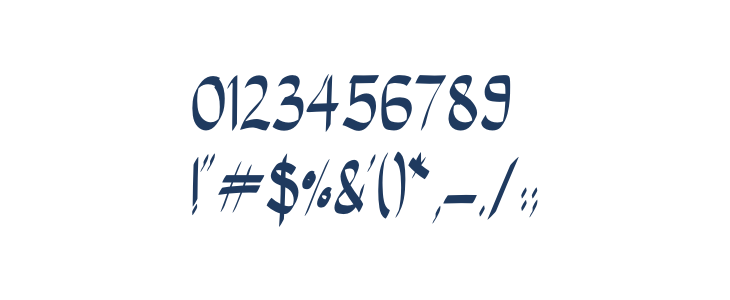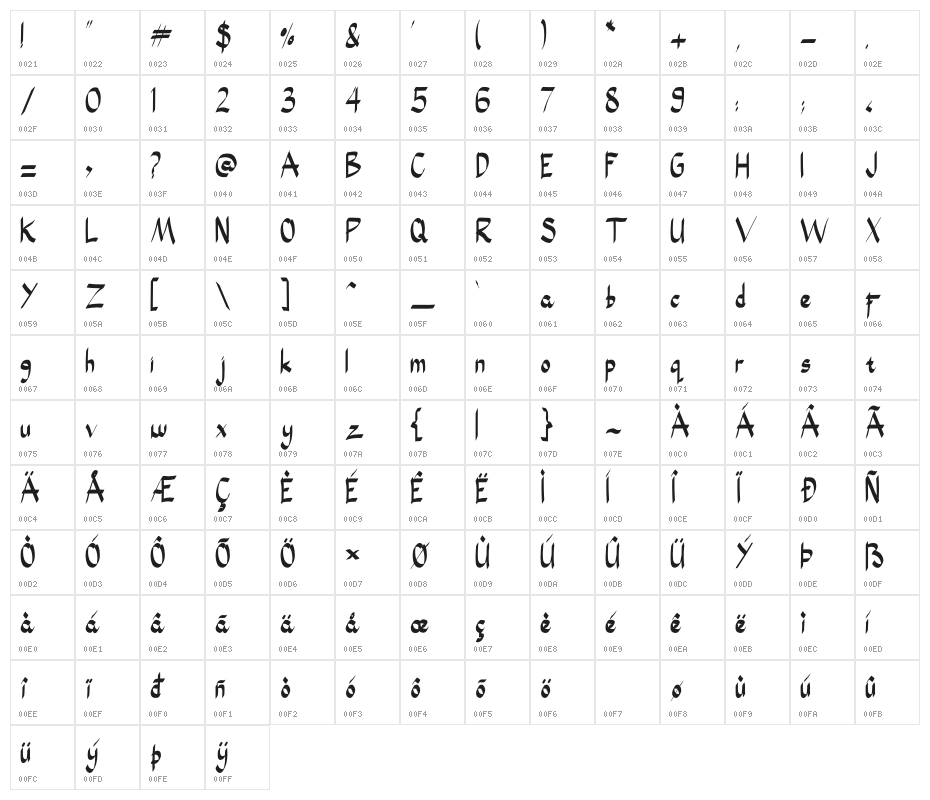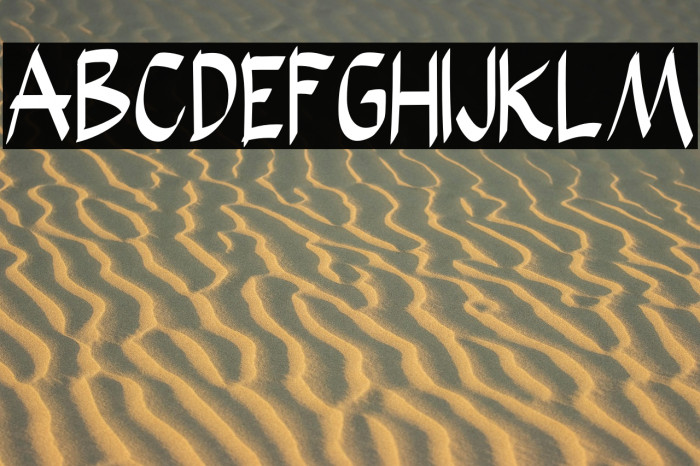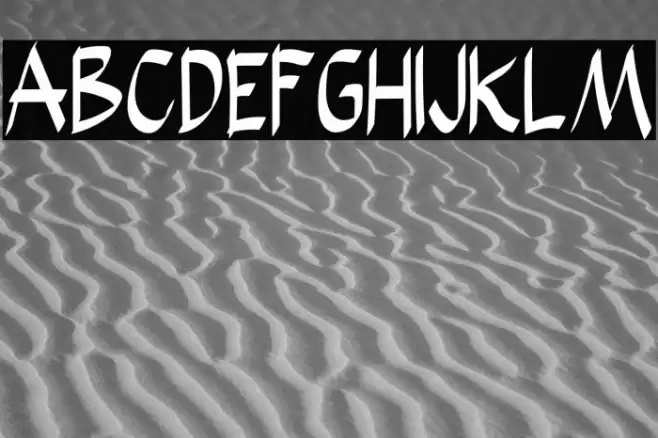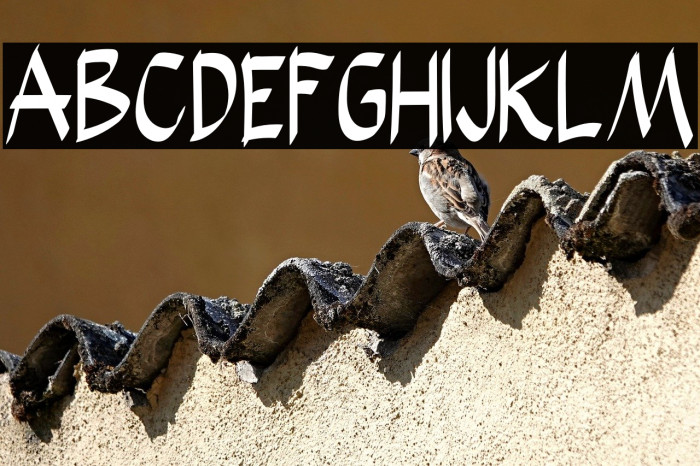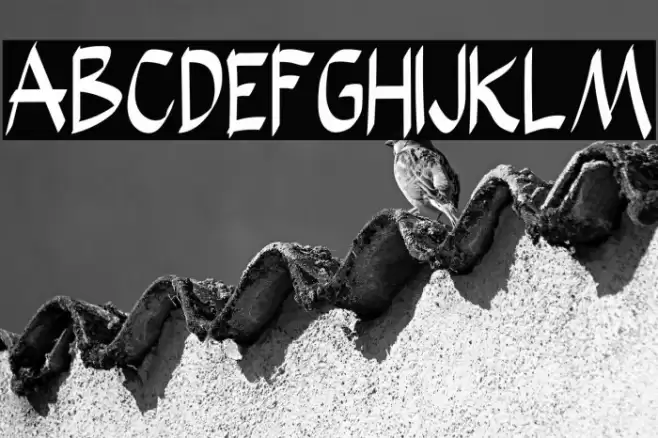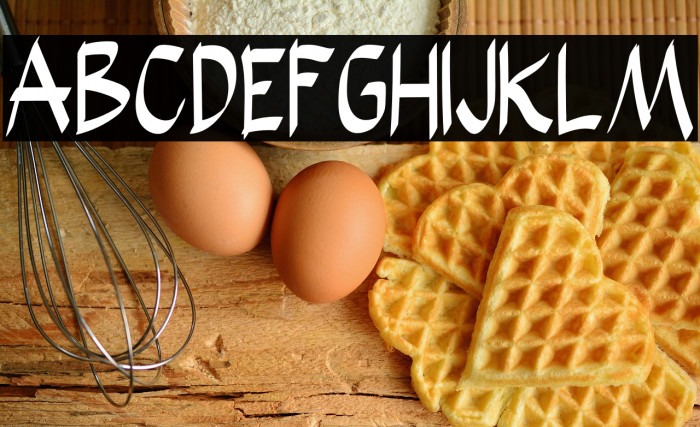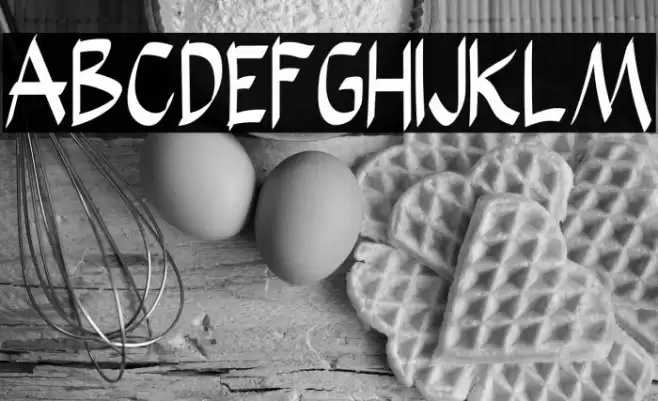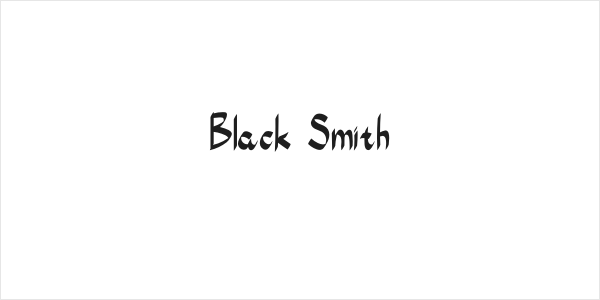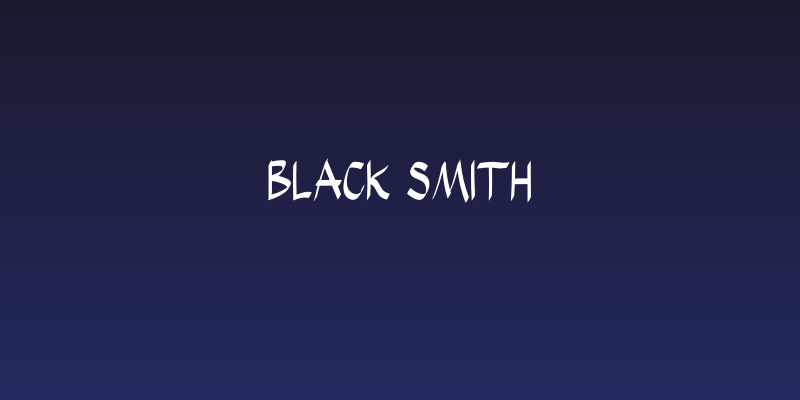
Black Smith Font
Black Smith Description
This font features a bold and dynamic style with sharp, angular lines that give it a distinctive and edgy appearance. The uppercase letters are tall and narrow, with exaggerated serifs that add a touch of drama. The lowercase letters maintain a similar angularity, providing a cohesive look across the typeface. The numerals are consistent with the overall style, featuring sharp edges and a slightly condensed form. Special characters are designed to match the bold and striking nature of the alphabet, making them suitable for attention-grabbing designs. The font's unique style makes it ideal for projects that require a strong visual impact.